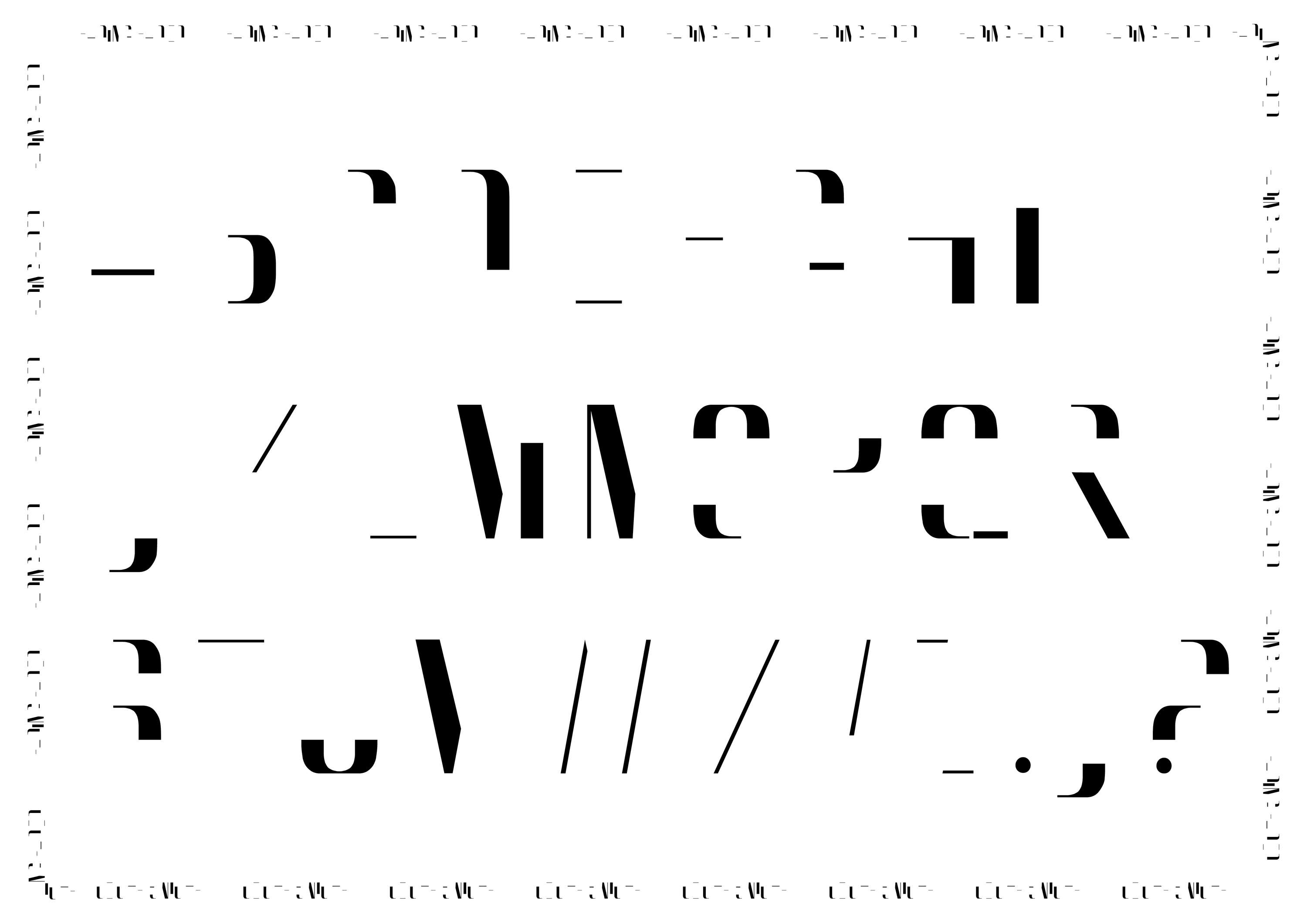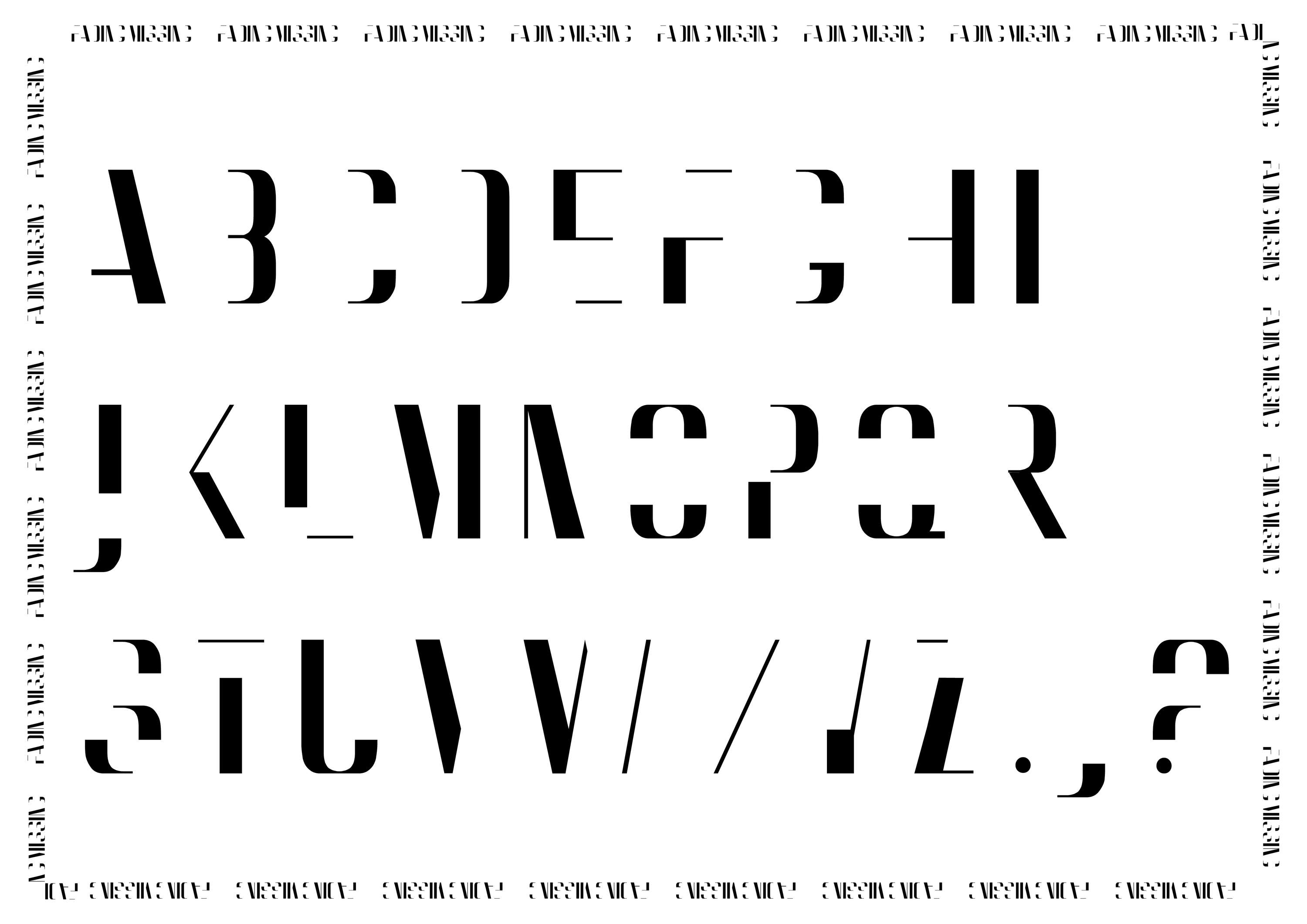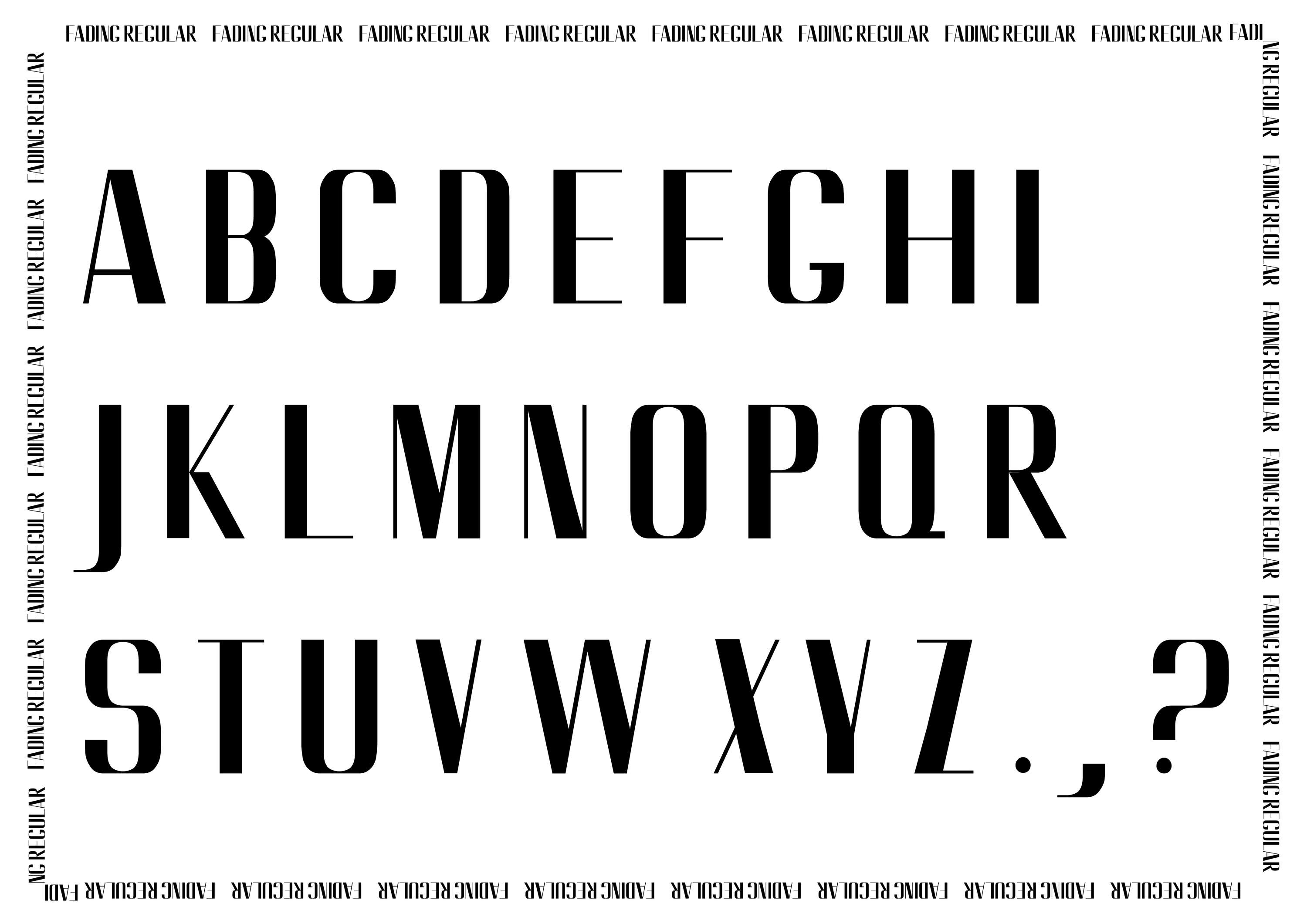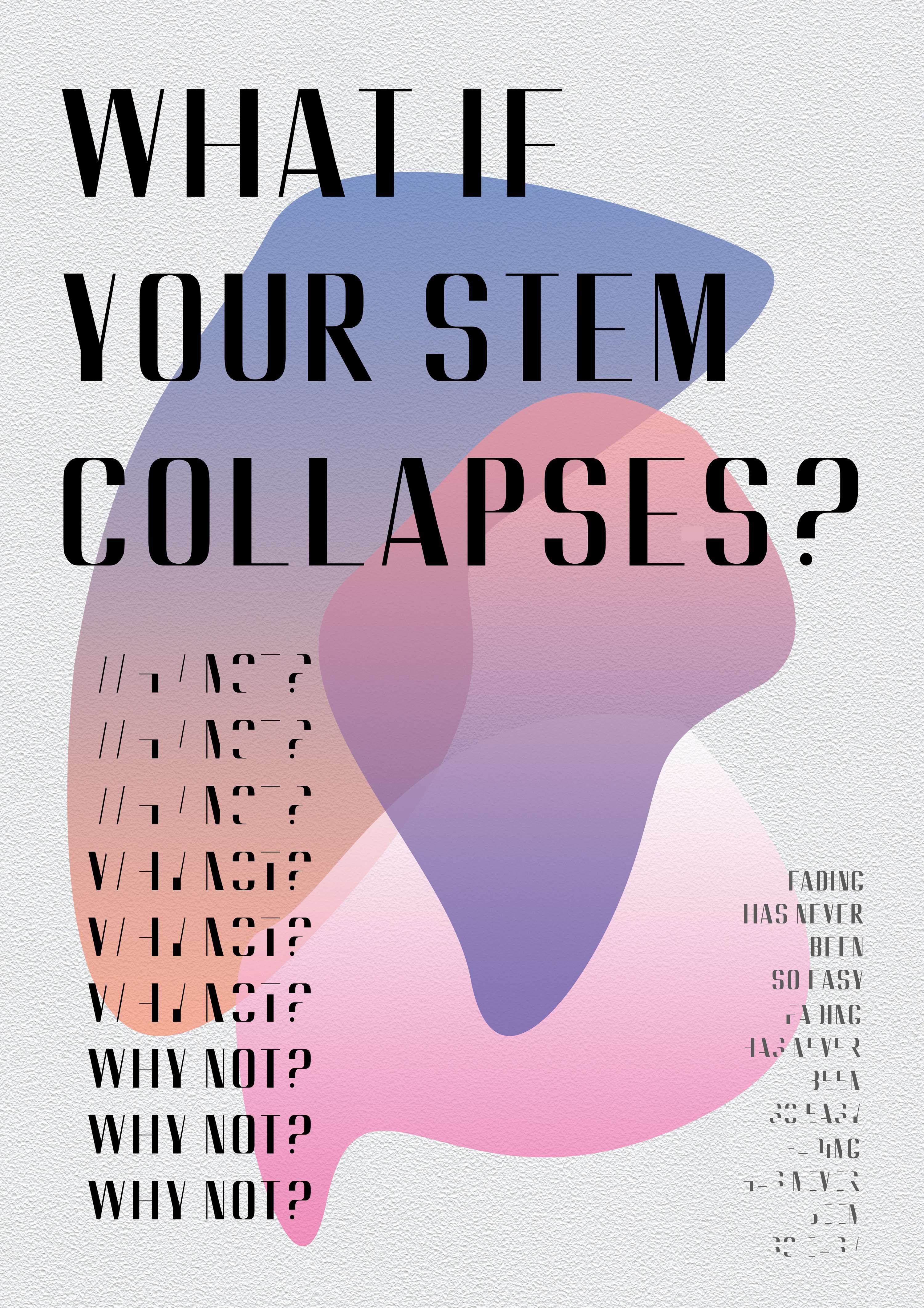
Fading Typeface
Designing a typeface based on Polish posters from the 80s. The typeface has three fonts: Fading Regular, Fading Missing and Fading Faded.